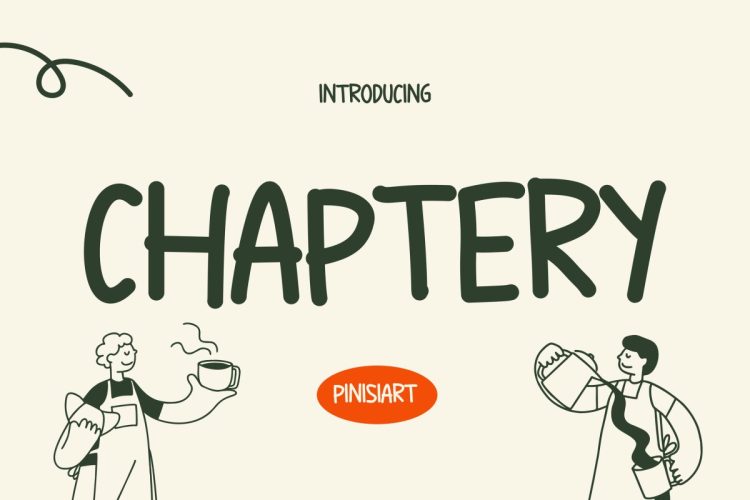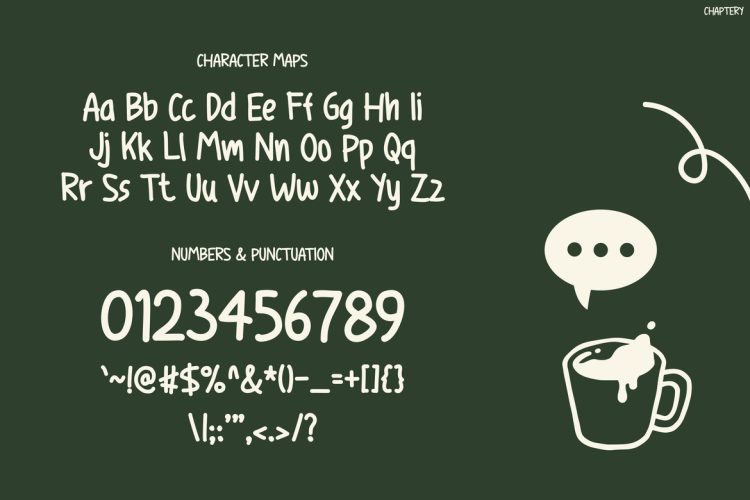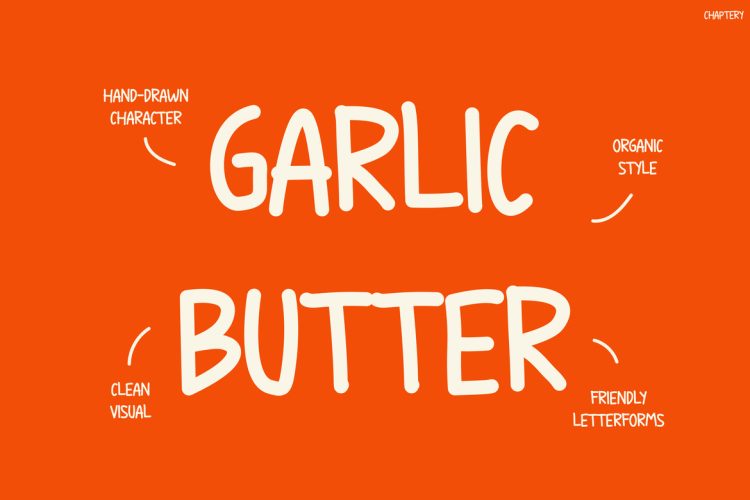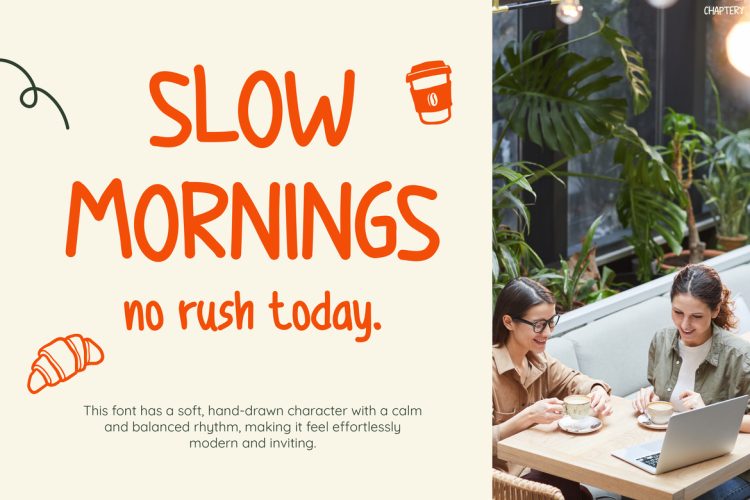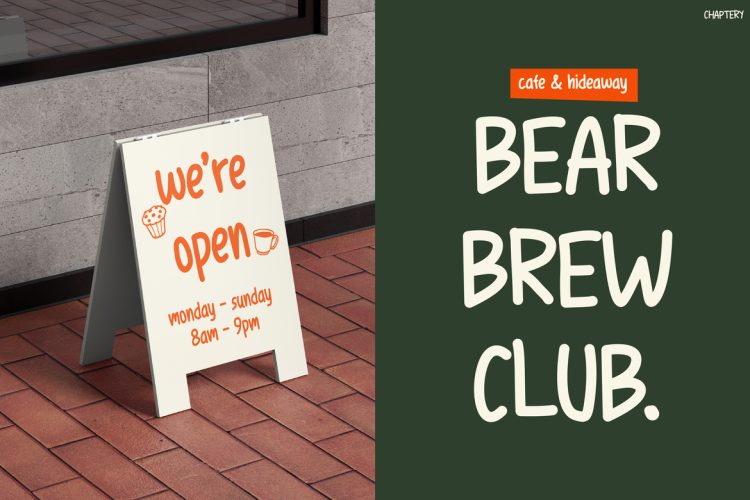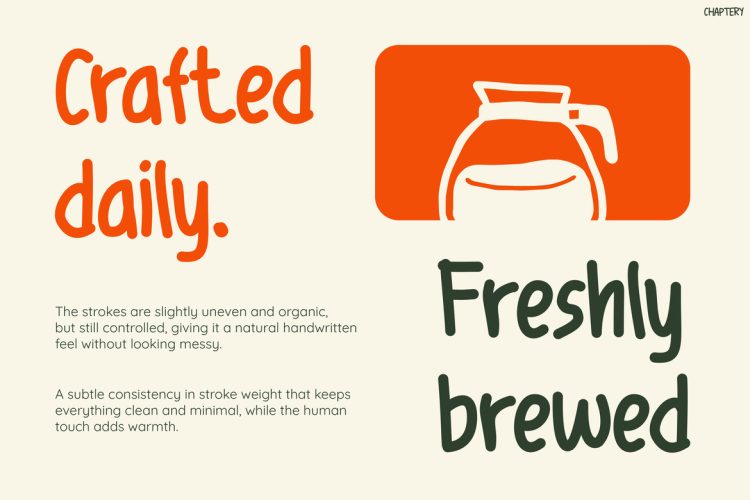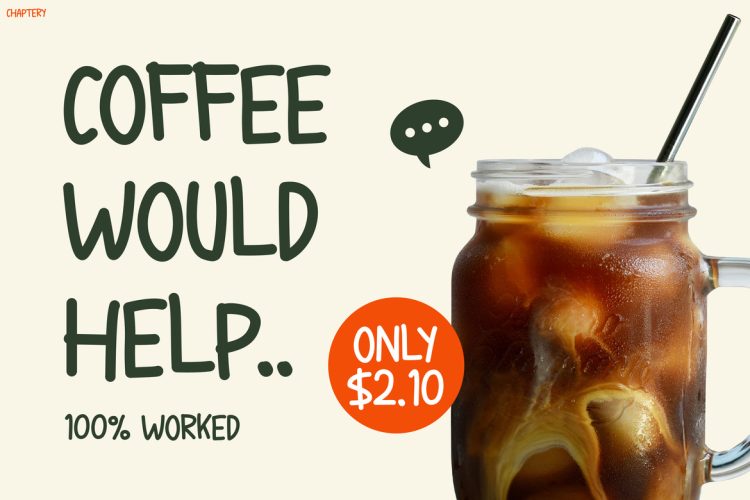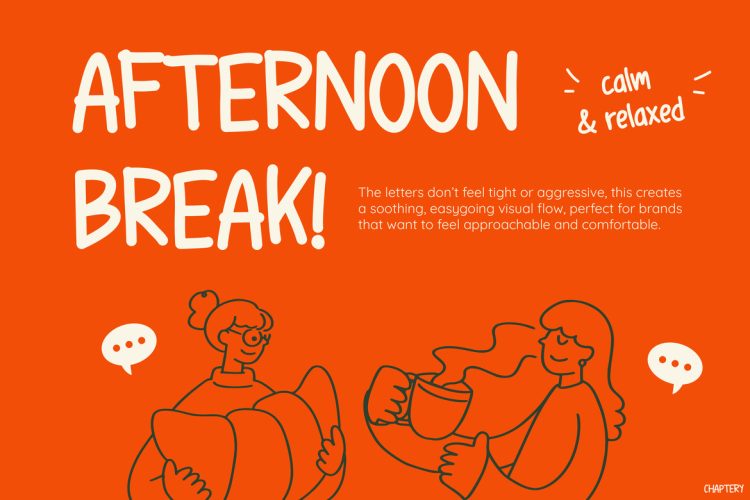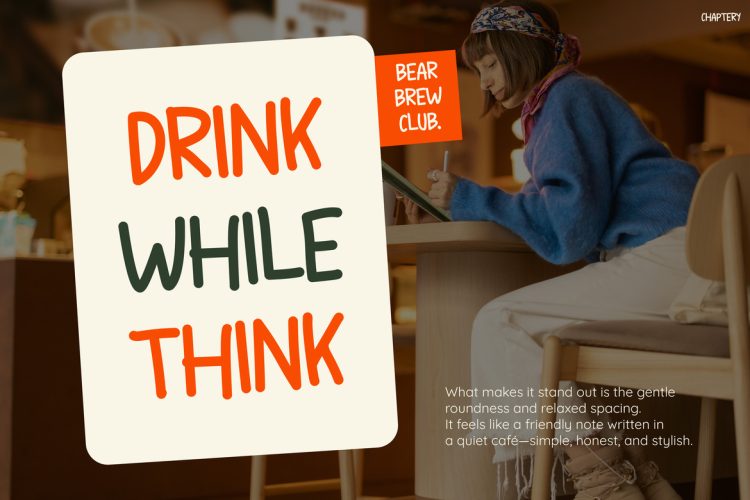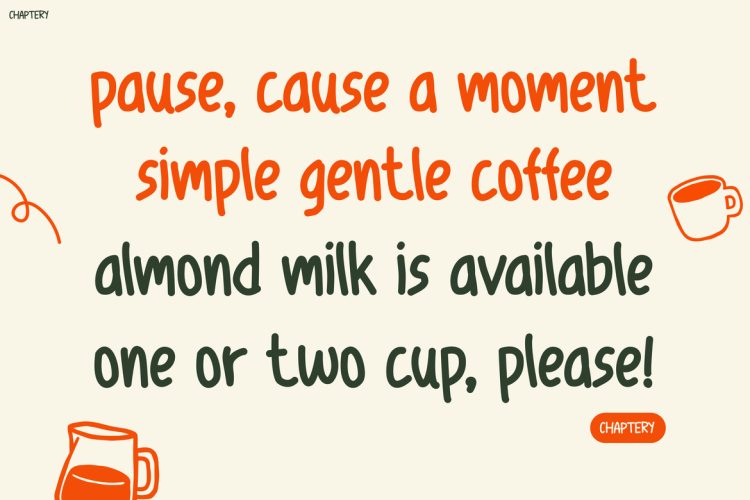
Chaptery โ Cozy Handwritten Display Font
Kids Font Chaptery is a warm, handwritten display typeface that blends playful charm with a cozy, cafรฉ-inspired aesthetic. At first glance, its soft curves and slightly uneven strokes immediately create a natural, human touch. Moreover, the font carries a relaxed and friendly personality, making every word feel inviting and authentic. Because of its organic letterforms and smooth flow, it delivers both visual appeal and readability. As a result, this font stands out as a perfect balance between casual elegance and playful expression, making it highly versatile across creative projects.
Kids Font Chaptery captures the essence of slow mornings, coffee breaks, and creative storytelling. In addition, each letter is thoughtfully designed to mimic natural handwriting, which gives your designs a personal and approachable feel. Furthermore, its clean yet expressive structure allows it to work beautifully in both bold headlines and supporting text. Not only that, but the font adapts seamlessly to different themes, whether warm and minimal or vibrant and playful. Consequently, designers can use it to create visuals that feel both stylish and relatable. At the same time, its handcrafted look enhances emotional connection, making your message more engaging and memorable.
This font is ideal for designers, cafรฉ owners, lifestyle brands, and content creators who want to deliver a friendly and relaxed vibe. For example, it works perfectly for coffee shop branding, menu designs, packaging, and social media posts. In addition, it is highly suitable for quotes, posters, blog visuals, and creative storytelling projects. Likewise, it fits beautifully in children-related designs, educational content, and casual branding. Therefore, if your goal is to create something warm, approachable, and visually appealing, this font is a perfect choice.
Final Thought
Ultimately, Kids Font Chaptery brings comfort, creativity, and personality into every design. Not only does it make your text look more engaging, but it also helps build a genuine connection with your audience. So, if you want your designs to feel warm, stylish, and effortlessly charming, this font is exactly what you needโgrab it now and start creating with heart!